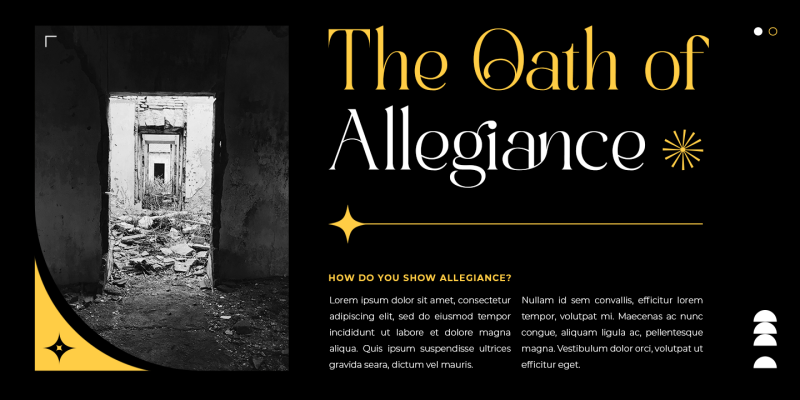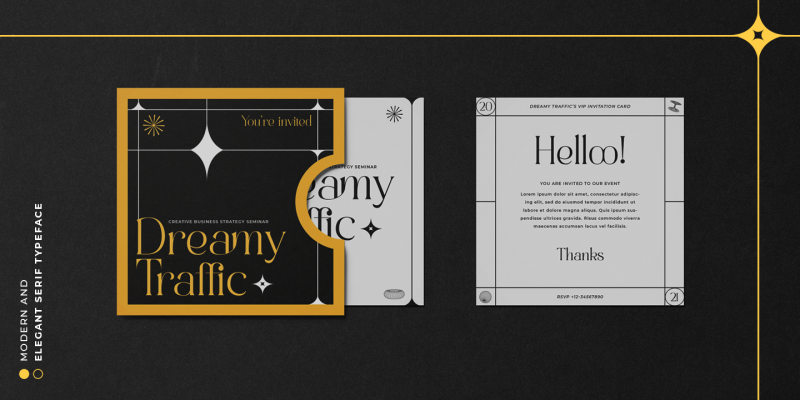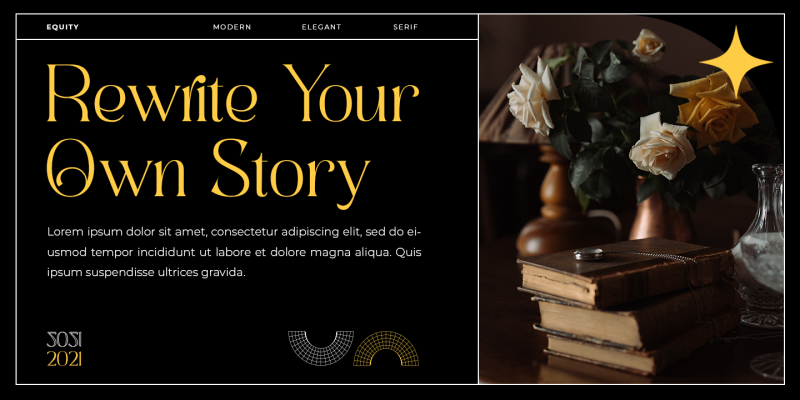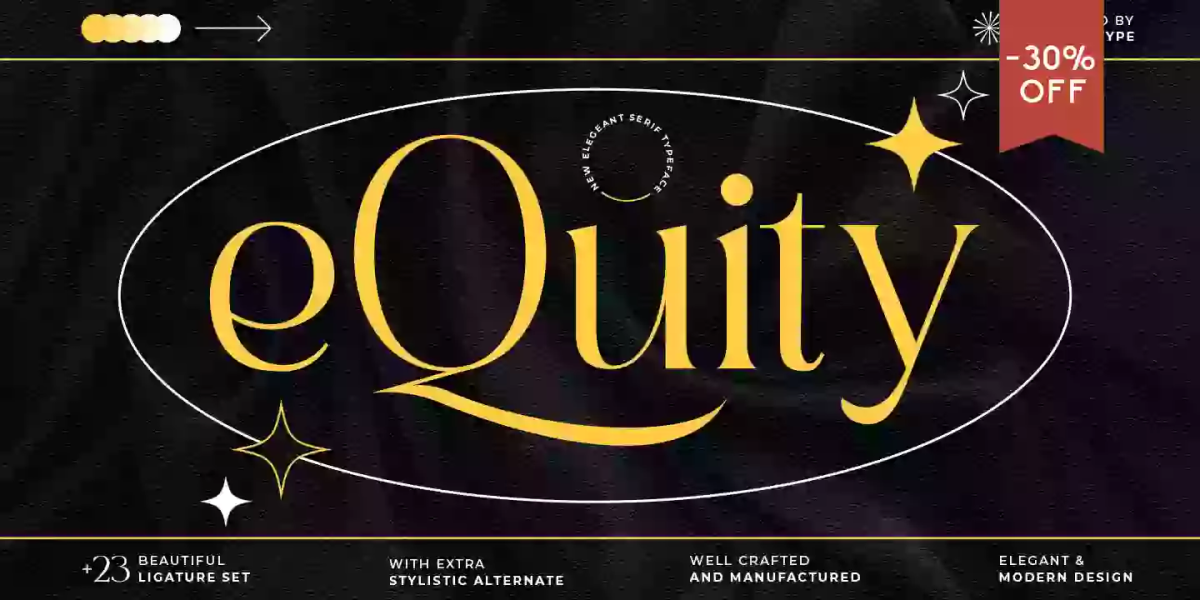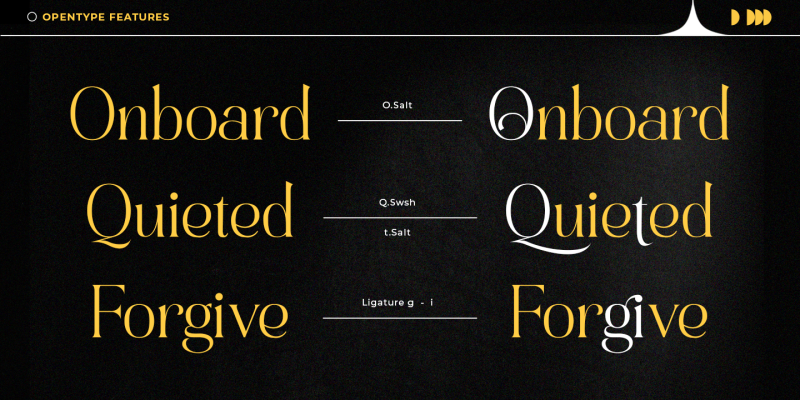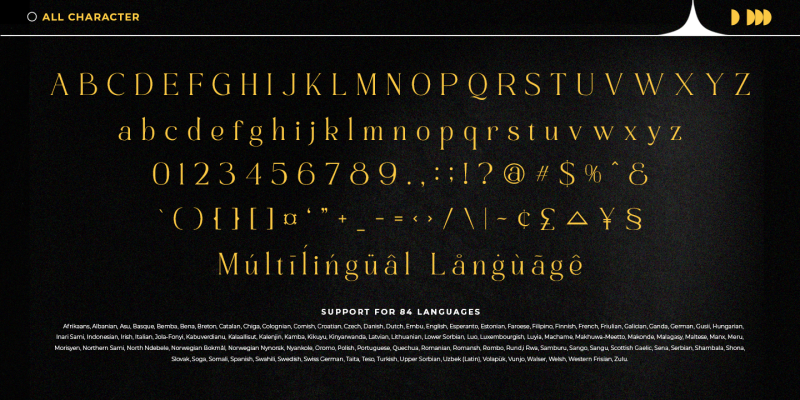
EQuity Font
EQuity is a modern, luxury, but still authentic serif font. This font is perfect for branding, logos, wedding stationery, cards, gift designs, photography, watermark, product packaging and quotes. You won’t get cute, whimsical, funny logos with this font. Only high-end, upscale, sophisticated Branding Design. Our font always includes Multilingual Support to make your branding reach a global audience. Inspire your audience, clients, or guests with this beautiful, statement font.
EQuity Font is a Serif Fonts font that brings a professional and versatile look to your projects. EQuity is a modern, luxury, but still authentic serif font.